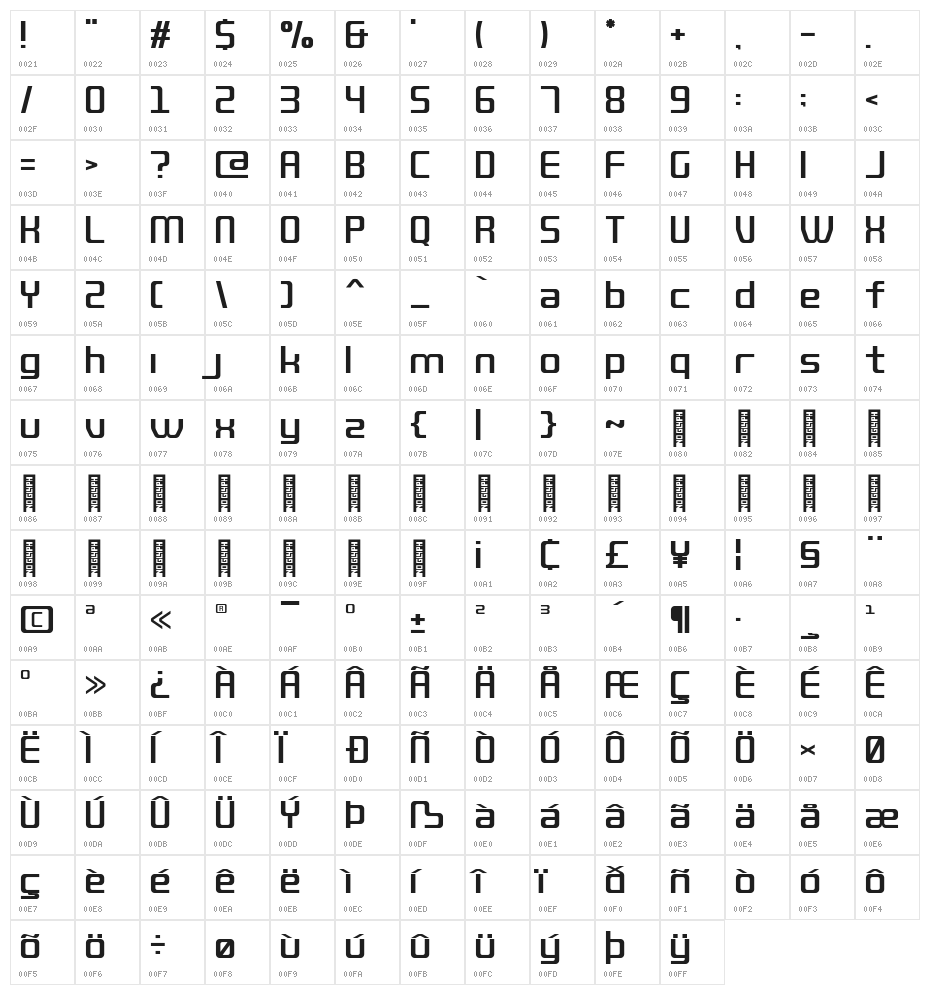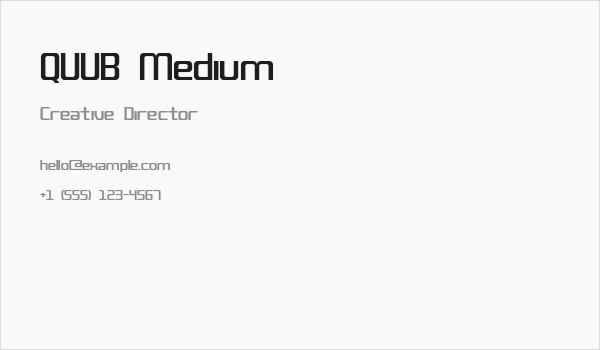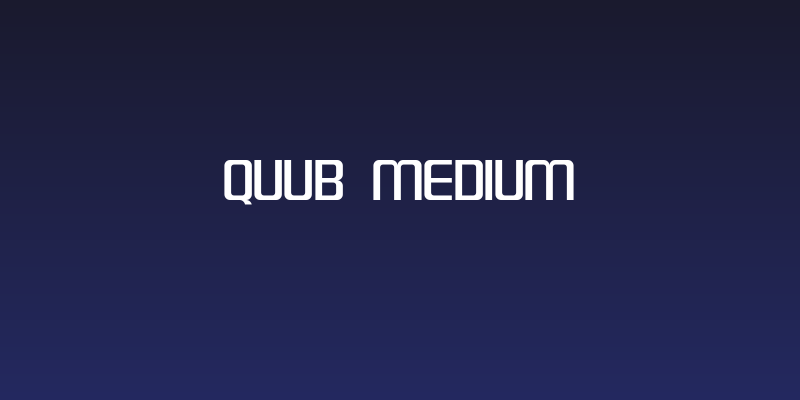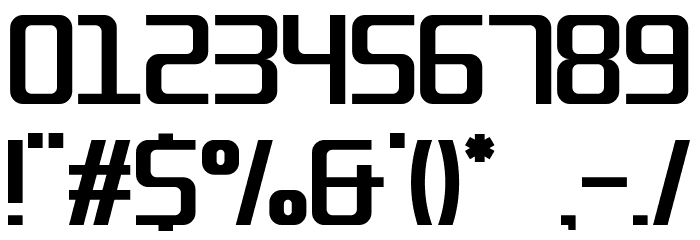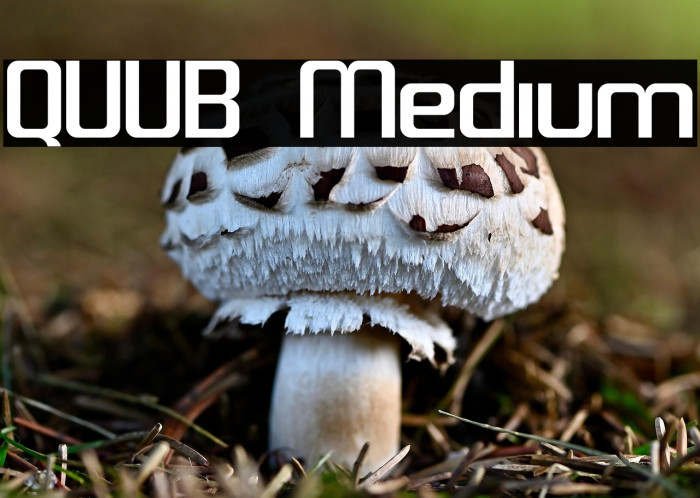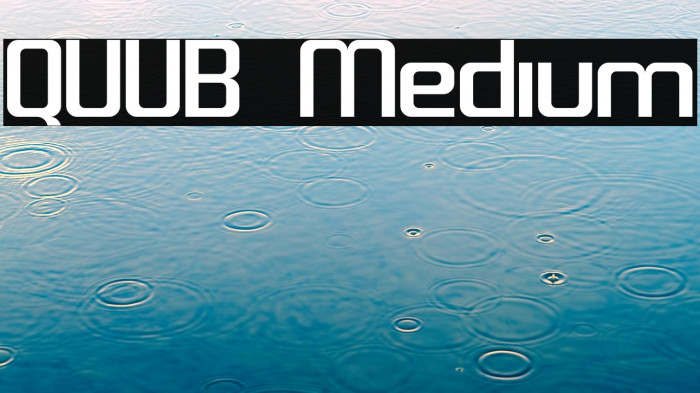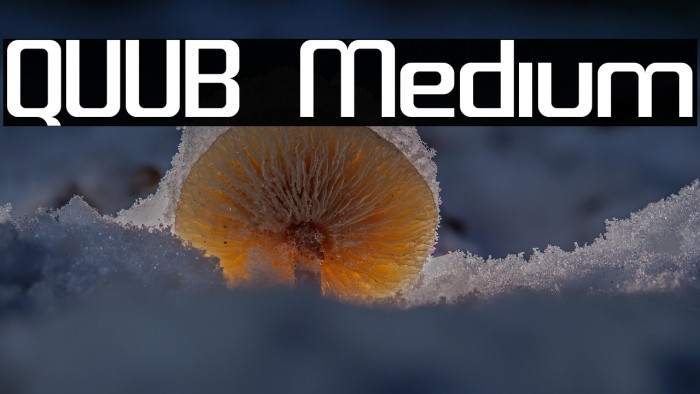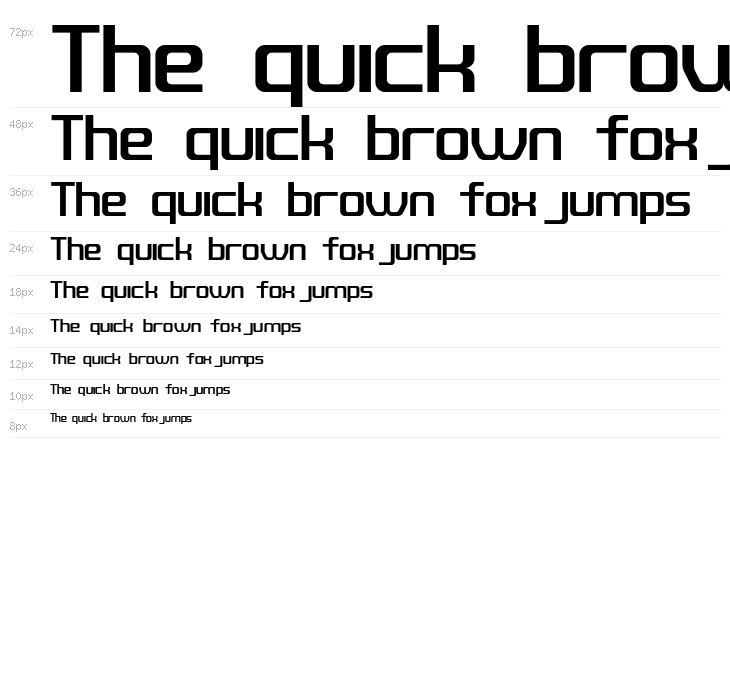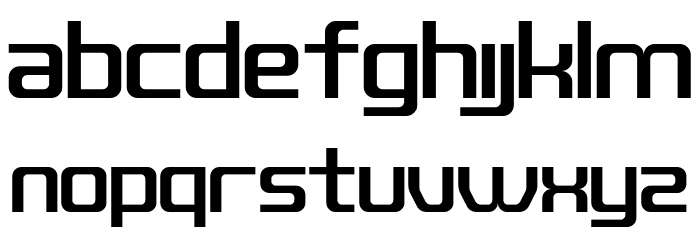
QUUB Medium Font
QUUB Medium Description
This font features a modern, geometric design with clean lines and a structured appearance. The characters are uniform in height, creating a cohesive and balanced look. The uppercase letters are bold and commanding, while the lowercase letters maintain a consistent style, offering a harmonious blend of strength and elegance. The numerals are clear and easily distinguishable, making them suitable for a variety of applications. Special characters are designed with the same geometric precision, adding to the font's versatility. The overall style is contemporary, making it ideal for projects that require a modern and professional touch.
| Use Case | Headlines, Logos, Digital Interfaces |
| Proposed Projects | Ideal for branding, advertising, digital interfaces, and editorial design. |